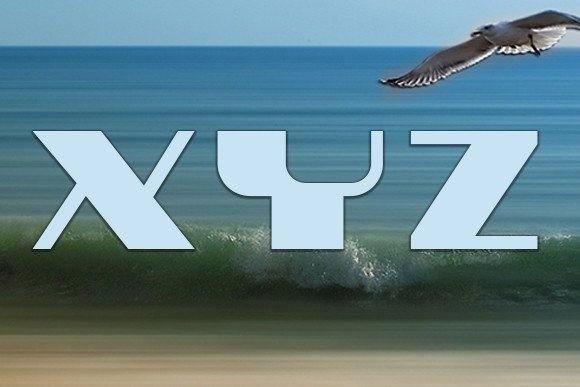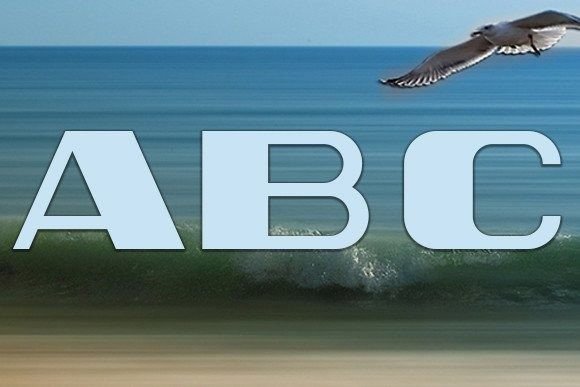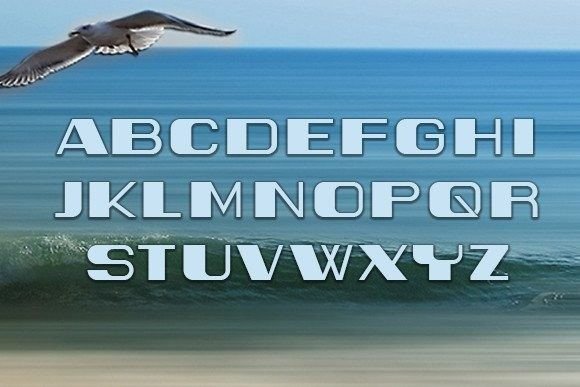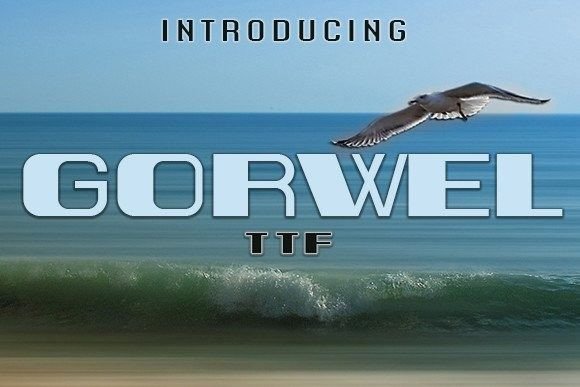
Gorwel Font: The Ultimate Sans Serif Font for Stunning Designs
Are you tired of using the same old fonts for your designs? Look no further! Introducing Gorwel Font, a sleek-looking sans serif font that is sure to take your designs to the next level. With its modern and clean aesthetic, Gorwel Font is perfect for creating eye-catching posters, flyers, shirts, and more.
What Makes Gorwel Font Stand Out?
Gorwel Font is a versatile and highly legible font that is designed to capture everyone’s attention. Its sleek and minimalist design makes it perfect for a wide range of design projects, from branding and advertising to packaging and textiles. Whether you’re a designer, crafty DIY enthusiast, or simply someone who loves to create, Gorwel Font is an excellent choice.
Key Features of Gorwel Font
- Sleek and Modern Design: Gorwel Font boasts a clean and contemporary design that is sure to make your designs stand out.
- Highly Legible: The font is optimized for readability, making it perfect for use on a variety of materials, from large posters to small business cards.
- Versatile: Gorwel Font can be used for a wide range of design projects, including posters, flyers, shirts, and more.
Why Choose Gorwel Font?
With so many fonts to choose from, why choose Gorwel Font? Here are just a few reasons:
- Unique and Modern Design: Gorwel Font offers a fresh and modern aesthetic that will set your designs apart.
- High-Quality: Gorwel Font is a high-quality font that is designed to produce crisp and clear results.
- Easy to Read: The font is optimized for readability, making it perfect for use on a variety of materials.
In conclusion, Gorwel Font is a sleek-looking sans serif font that is perfect for designers and crafters looking to create stunning designs. With its modern and clean aesthetic, high legibility, and versatility, Gorwel Font is an excellent choice for a wide range of design projects. So why wait? Download Gorwel Font today and start creating eye-catching designs that will capture everyone’s attention!